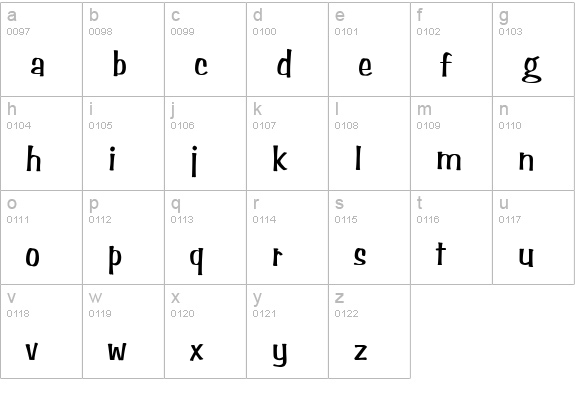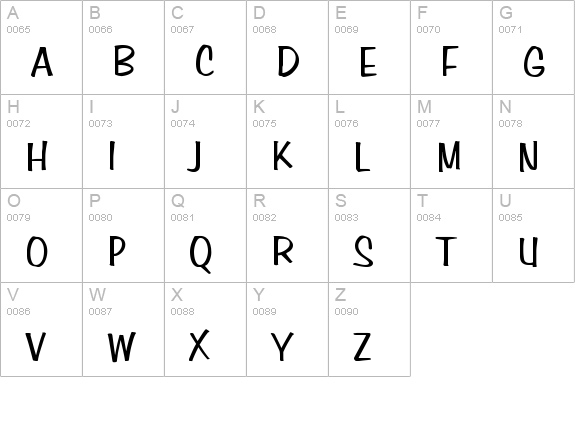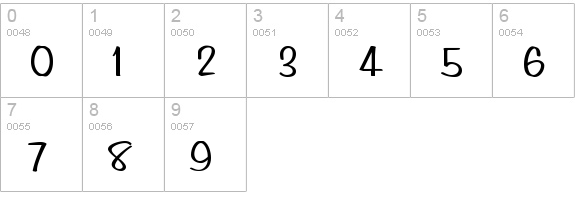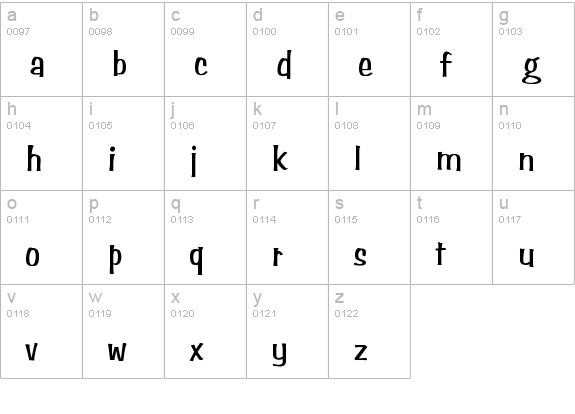
CgBenguiatFrisky Font Details
CgBenguiatFrisky is a whimsical and playful font that exudes a sense of fun and excitement. With its unique and quirky design, this font is perfect for adding a touch of charm to any project. The flowing lines and bouncy curves of CgBenguiatFrisky give it a lively and dynamic feel that is sure to catch the eye. What makes CgBenguiatFrisky even more appealing is that it is available for free download at FontsMarket.com. This means that you can easily access and use this delightful font in your designs without any cost. Whether you're working on a creative project, designing invitations, or simply looking to add a bit of flair to your work, CgBenguiatFrisky is a fantastic choice that won't break the bank. Download it today and let your imagination run wild with this charming and free font.